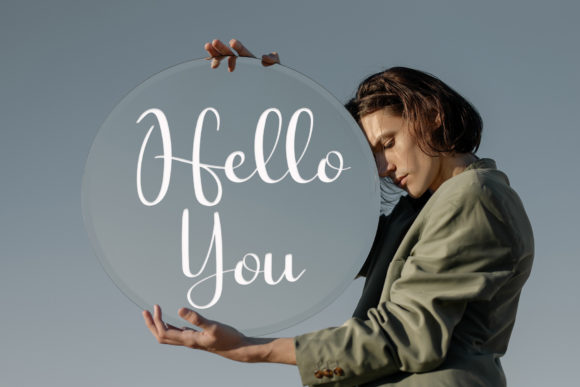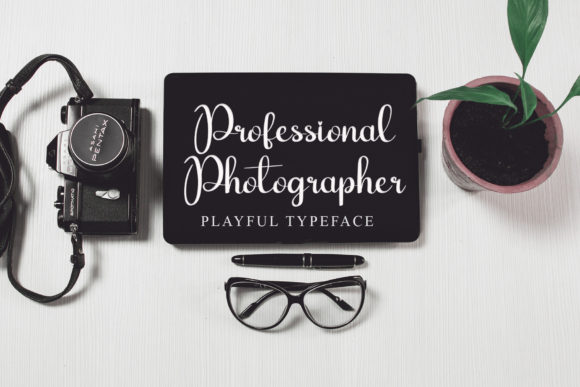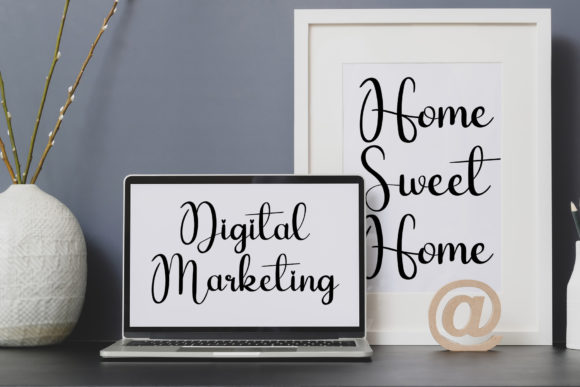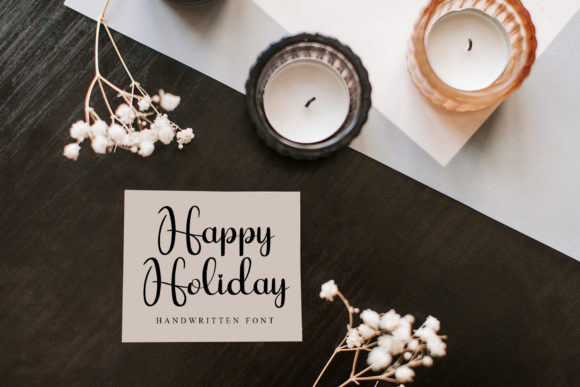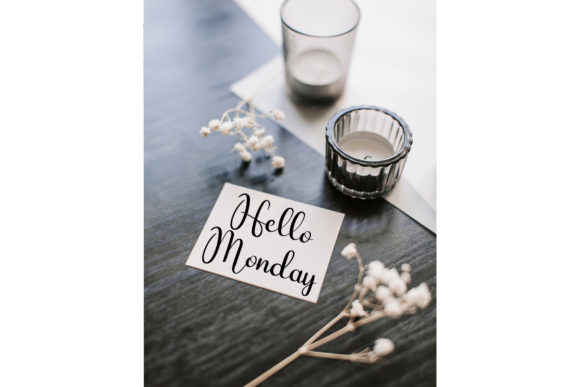
Simple Mandala Font
About Simple Mandala Font
Simple Mandala is a sweet, all round and flexible handwritten font. Warm, romantic and jolly, this font will turn each of your project ideas into real works of art. Have fun with this beautiful font and explore its endless variations.